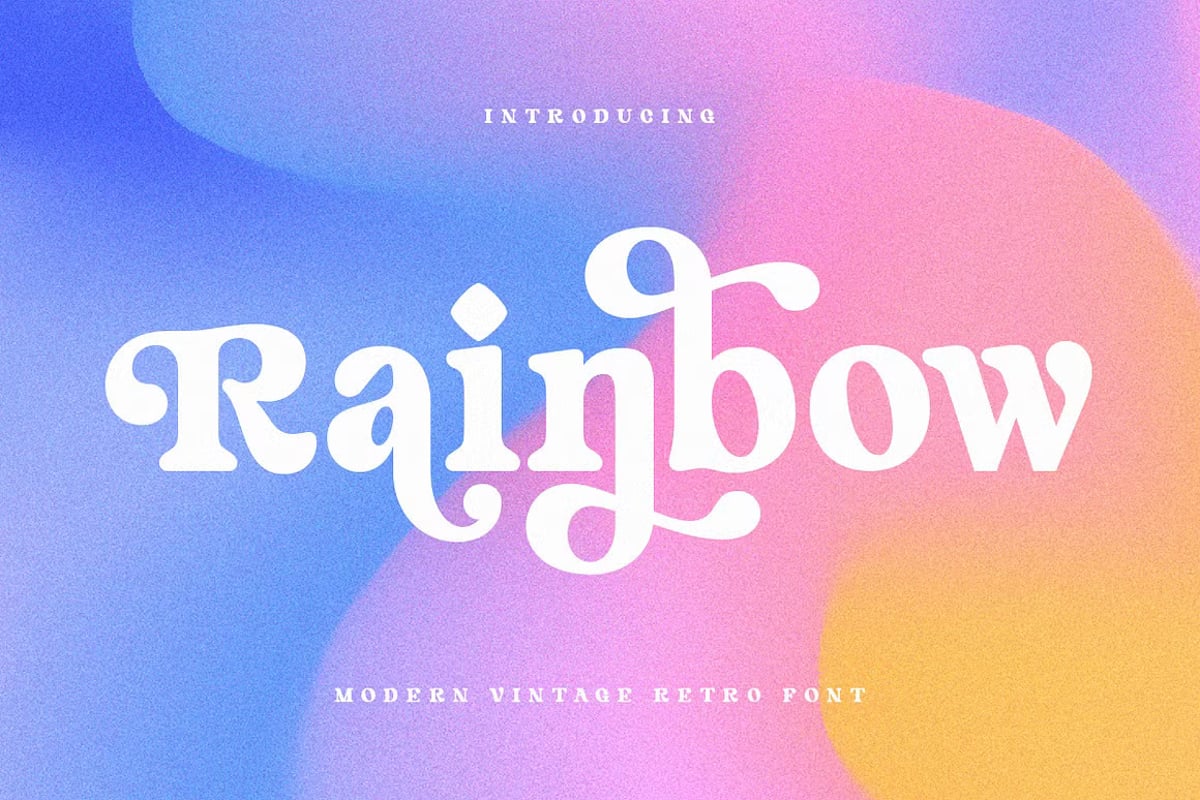
Rainbow - Modern Vintage Font
Rainbow delivers sophisticated vintage elegance with modern functionality, perfect for creating distinctive brand identities that stand out from the crowd. This Modern Vintage Display Font was crafted specifically for unique branding requirements, featuring special ligatures in a distinctive style that instantly elevates your brand's visual appeal. Rainbow provides the perfect solution for designers and brand owners seeking to create designs with authentic vintage character and timeless sophisti...